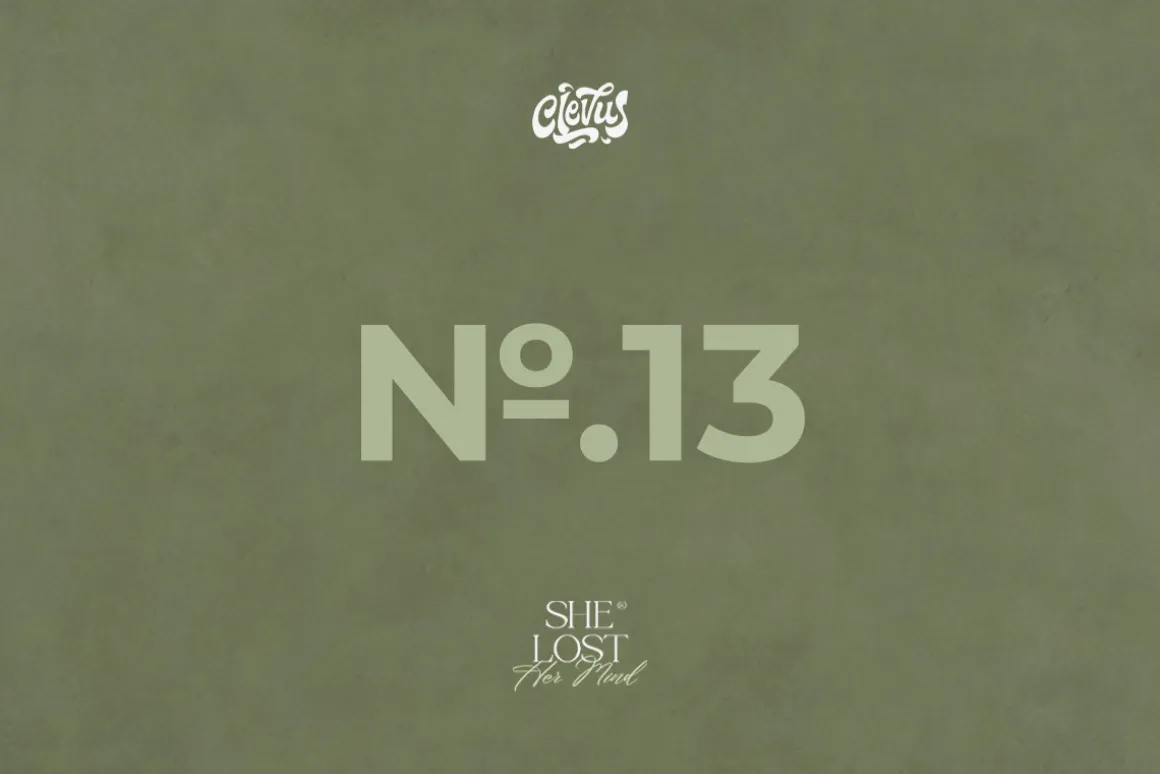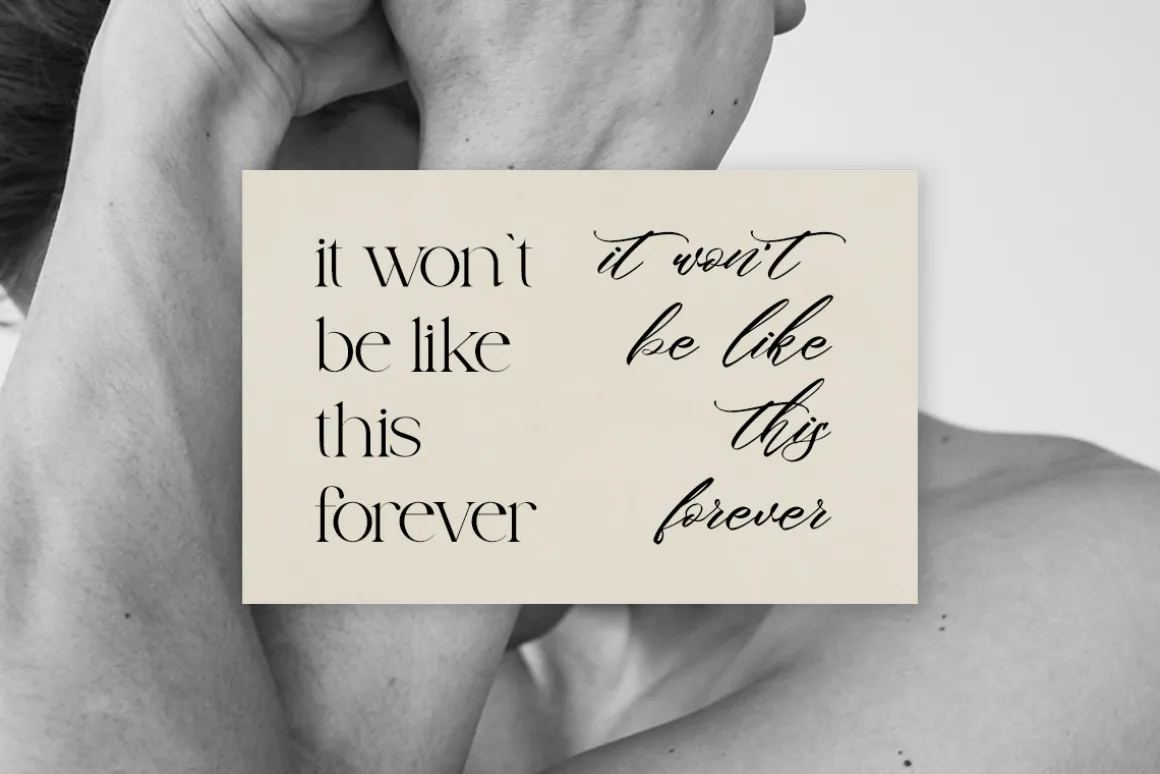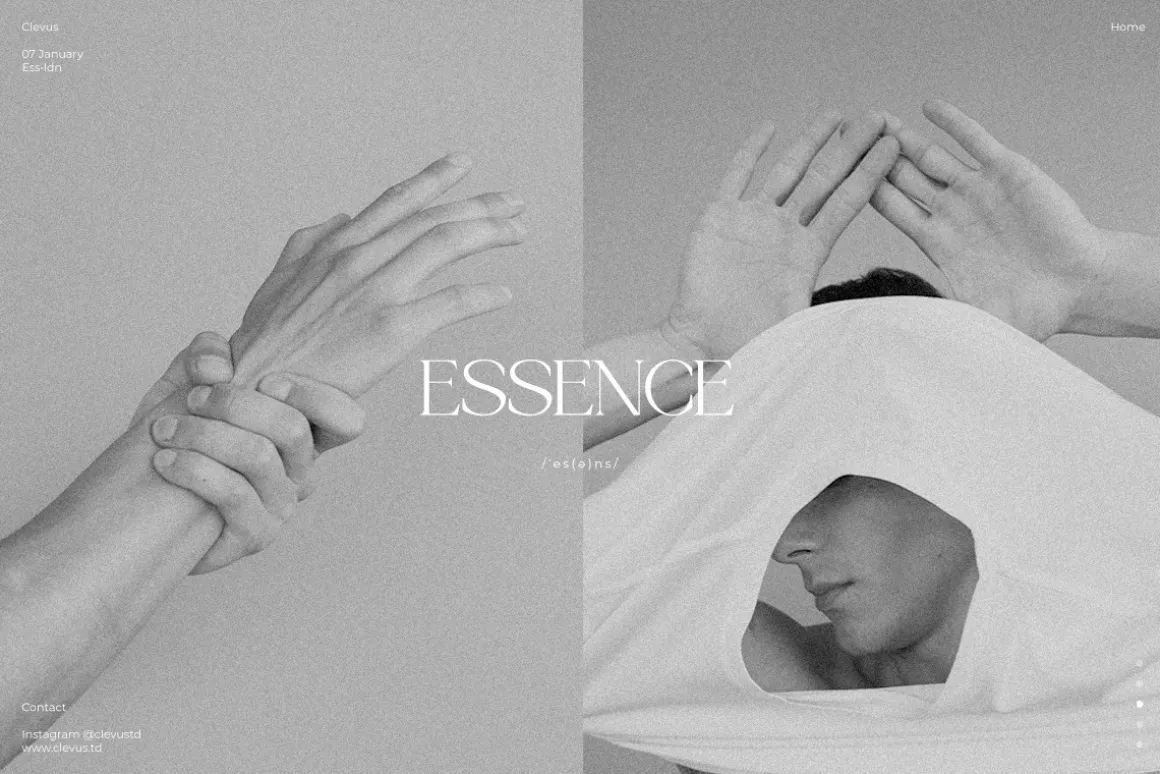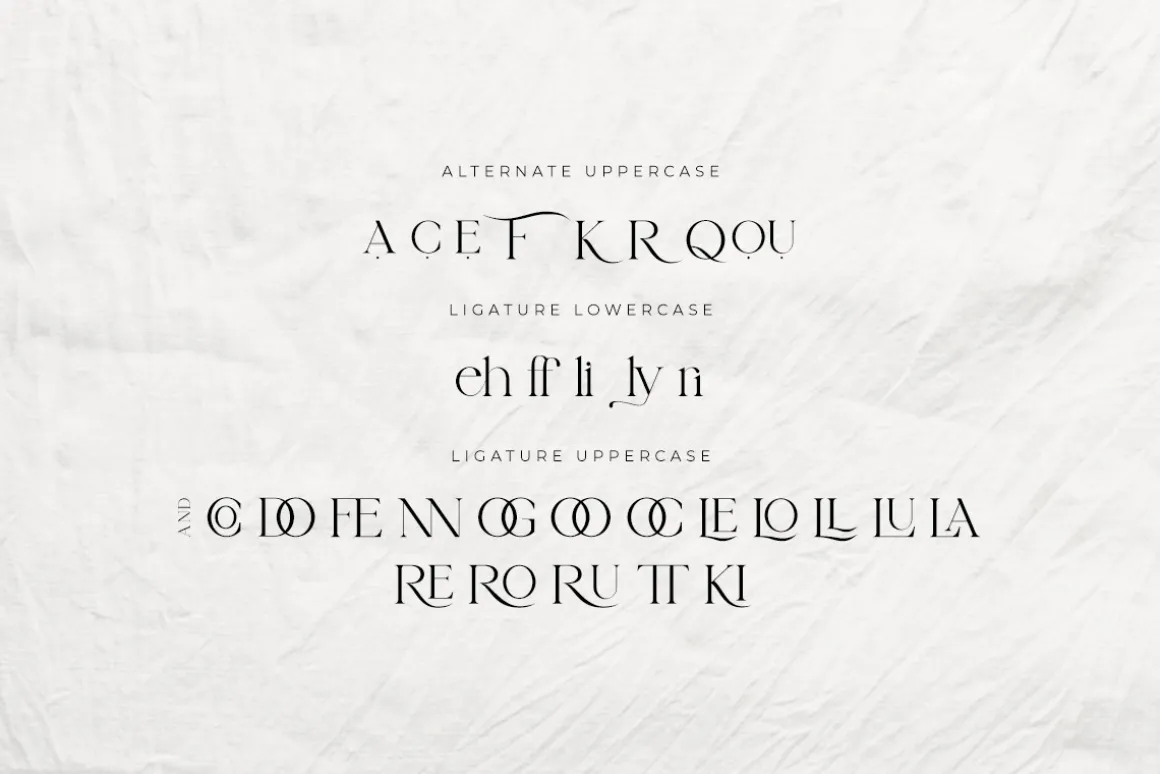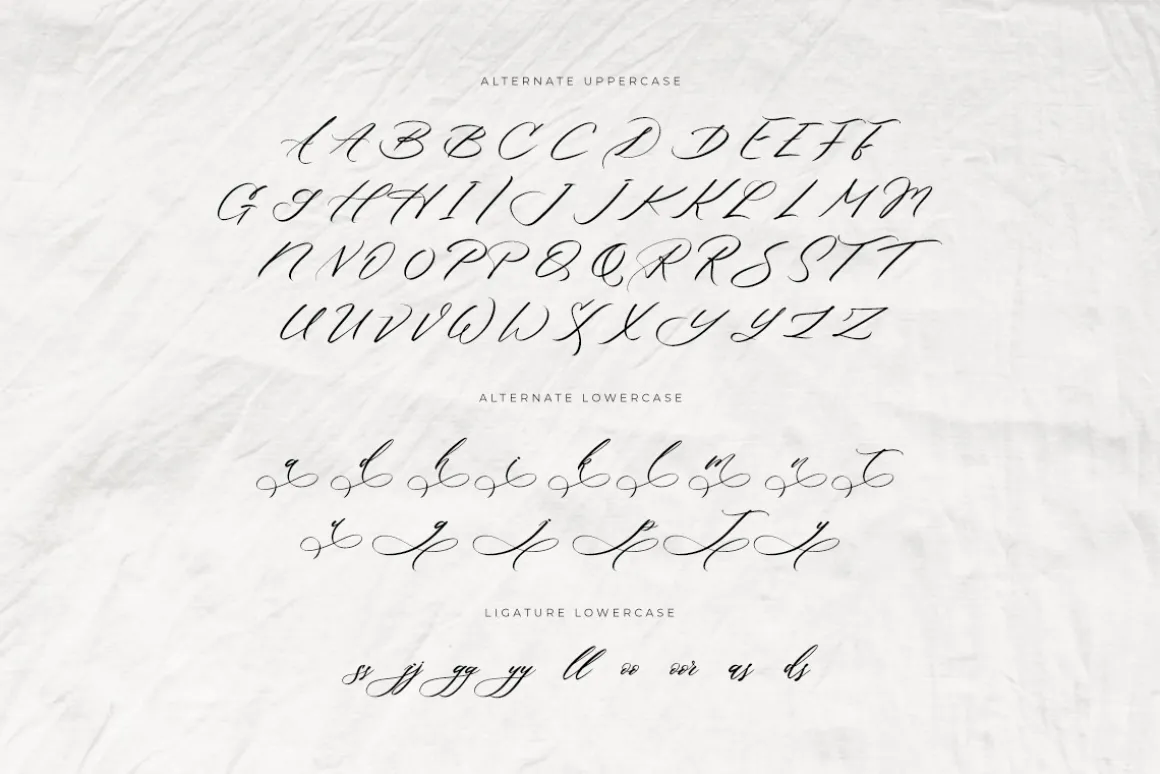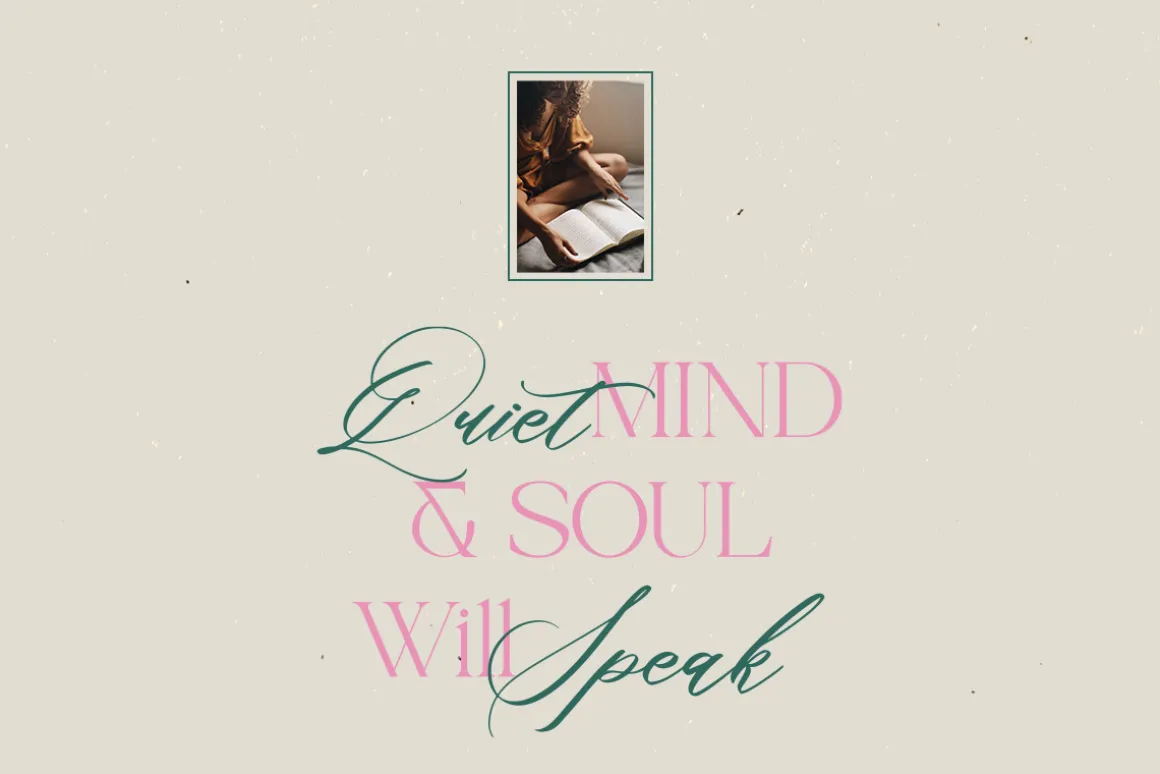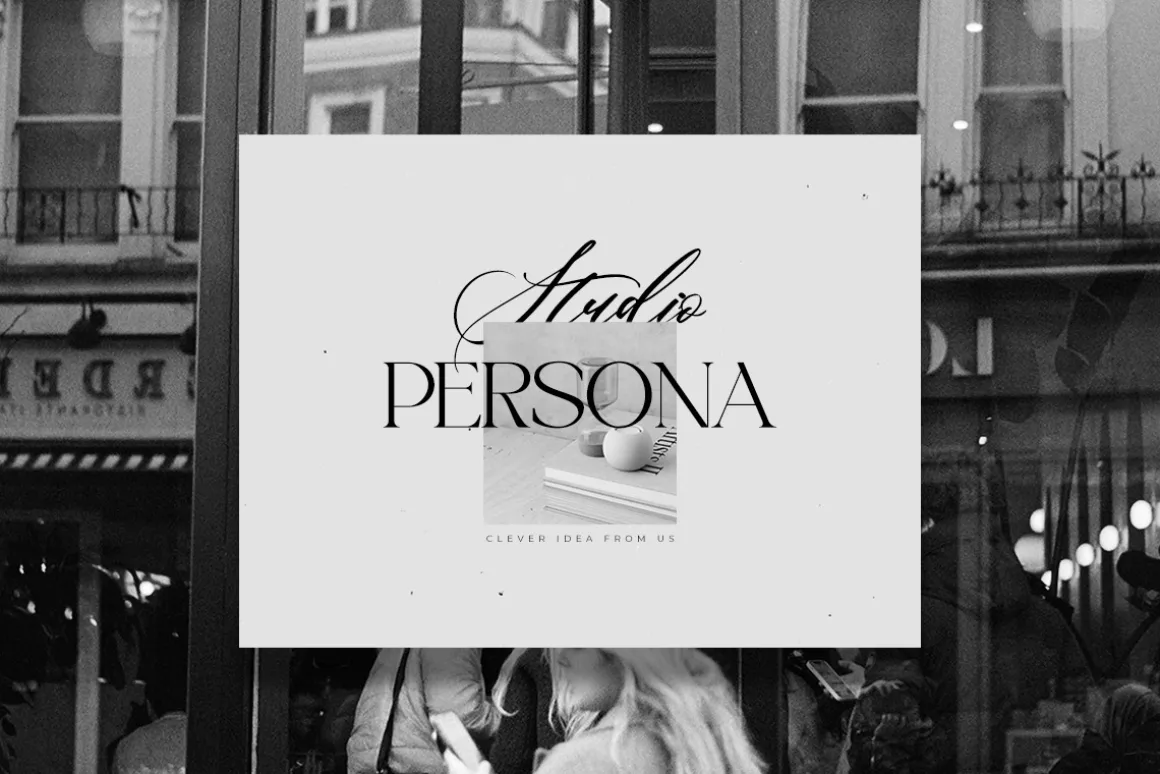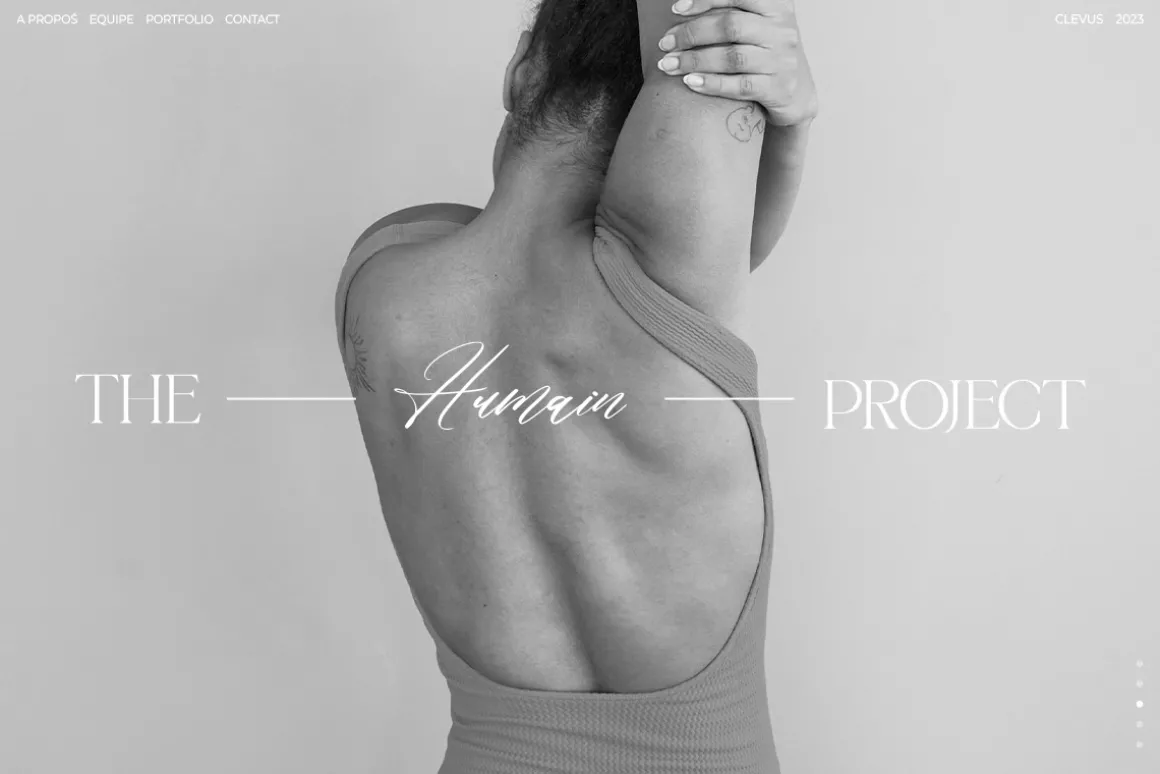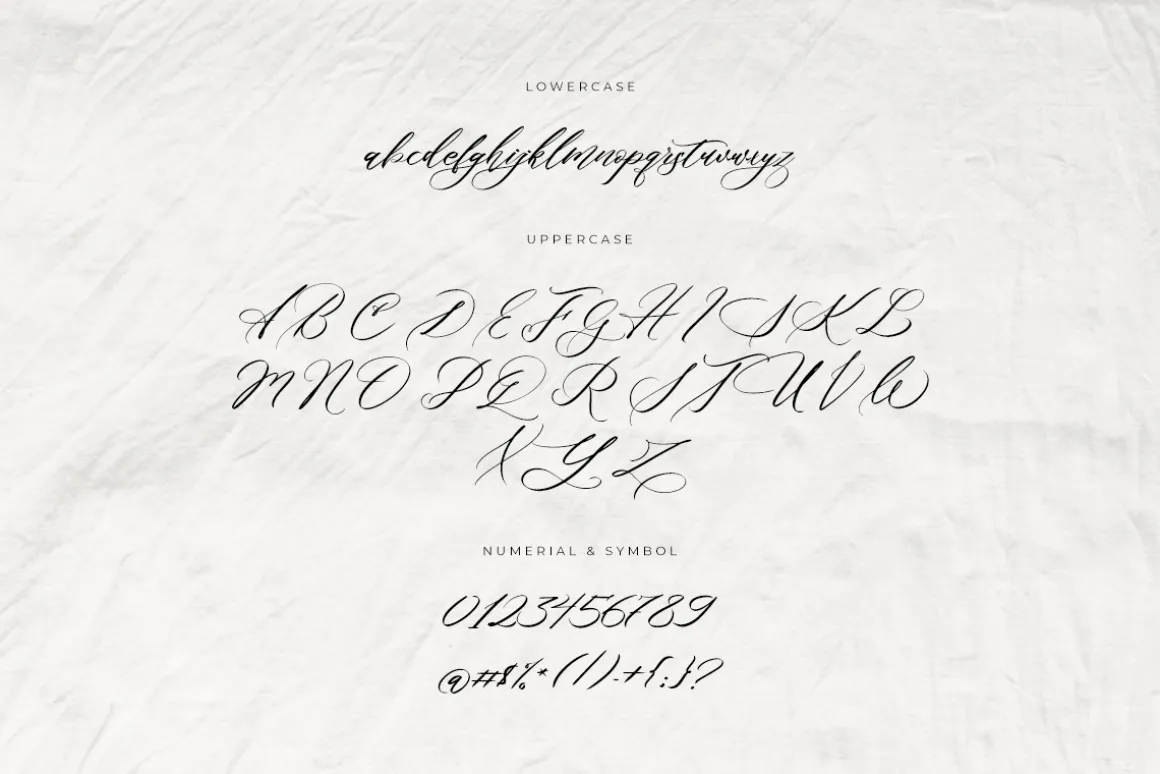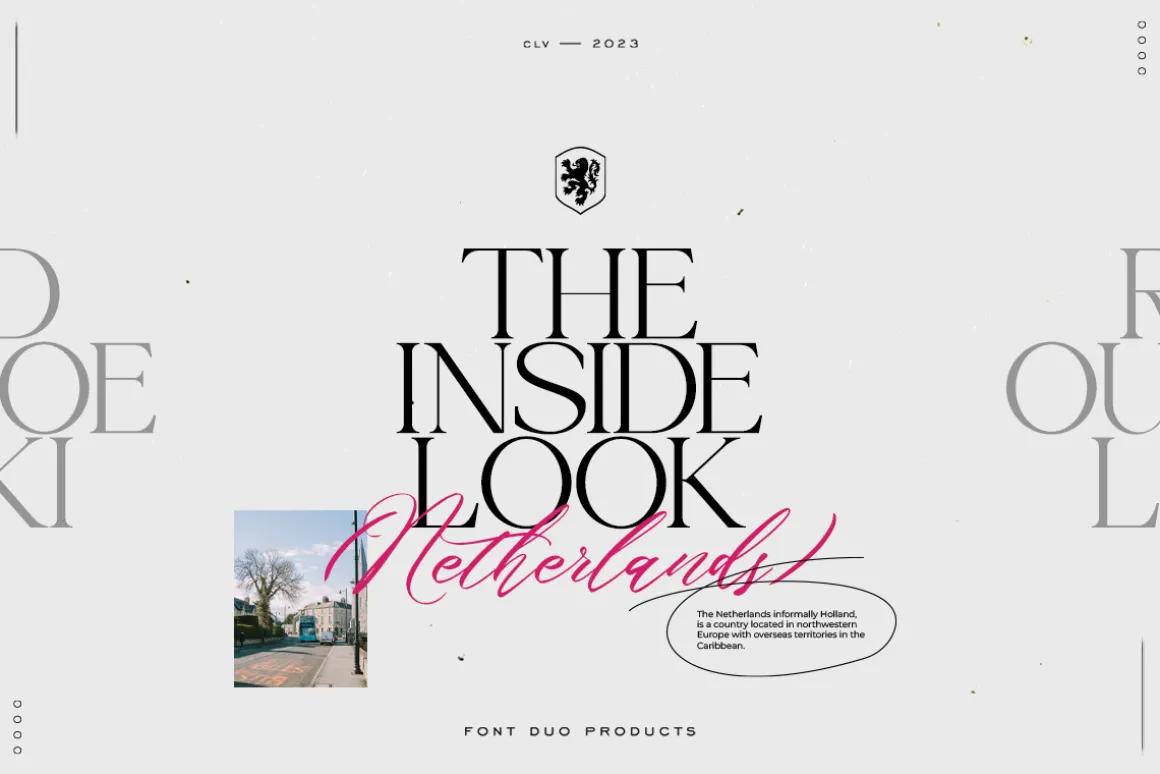
Proudly present She Lost Her Mind Font Duo.
She Lost Her Mind is a unique font design consisting of a combination of a classic serif font and a classic script handwritten font. It is specifically created to cater to the design needs of elegant and feminine themes, such as in magazines or branding materials. The serif font has a classic and timeless character, while the script font is designed with a personal and human touch, giving a modern and creative feel. This font duo is perfect for use in various design media such as magazines, books, posters, brand identities, logos, and more. By choosing She Lost Her Mind , you can add a touch of professionalism and modernity to your designs, while also providing quality and character to every design you create.